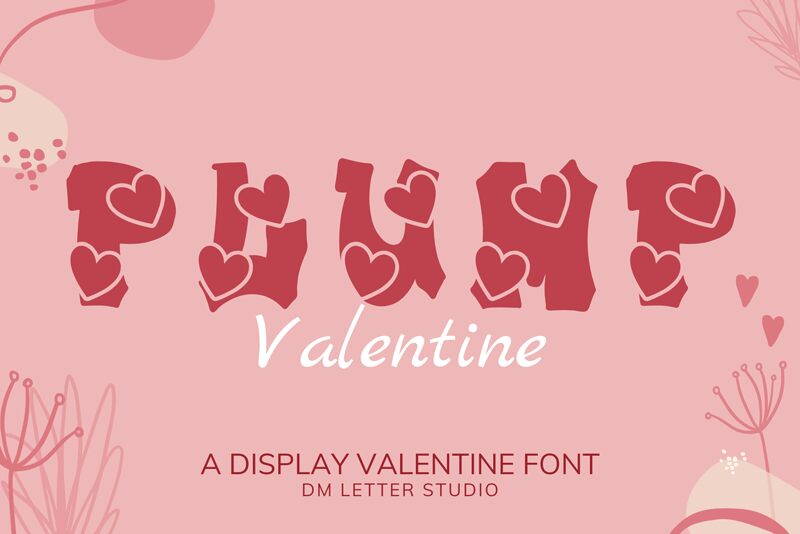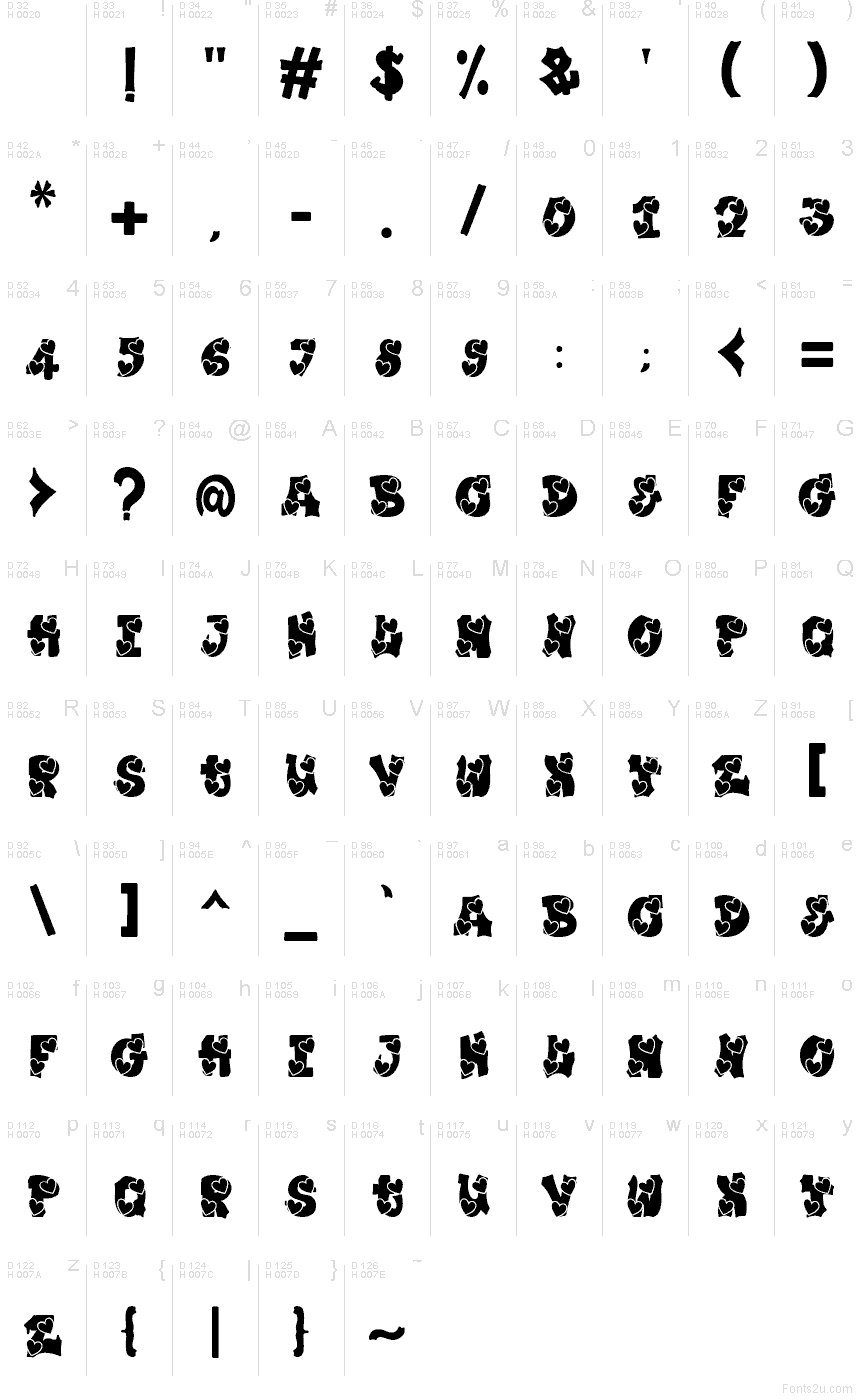
Plump Valentine
Plump Valentine font by DM Letter Studio - Dimas Prasetyo is a free decorative holiday typeface that turns every word into a burst of candy-coated hearts. Chunky letterforms are packed with bold, inky black shapes and cut-out heart motifs, giving your text a bubbly, over-the-top romantic feel that’s more playful than formal. It looks like lettering on a box of vintage sweets—soft, plump, and a little bit quirky in the best way.
Using Plump Valentine, you can dial up the charm on greeting cards, party invitations, classroom decor, stickers, social posts, banners, and themed packaging. The tight, energetic forms hold up especially well at larger sizes where all the heart details can shine. This free font works beautifully when paired with a clean sans serif for smaller text, letting the headline do the flirting while the supporting copy stays clear and readable.